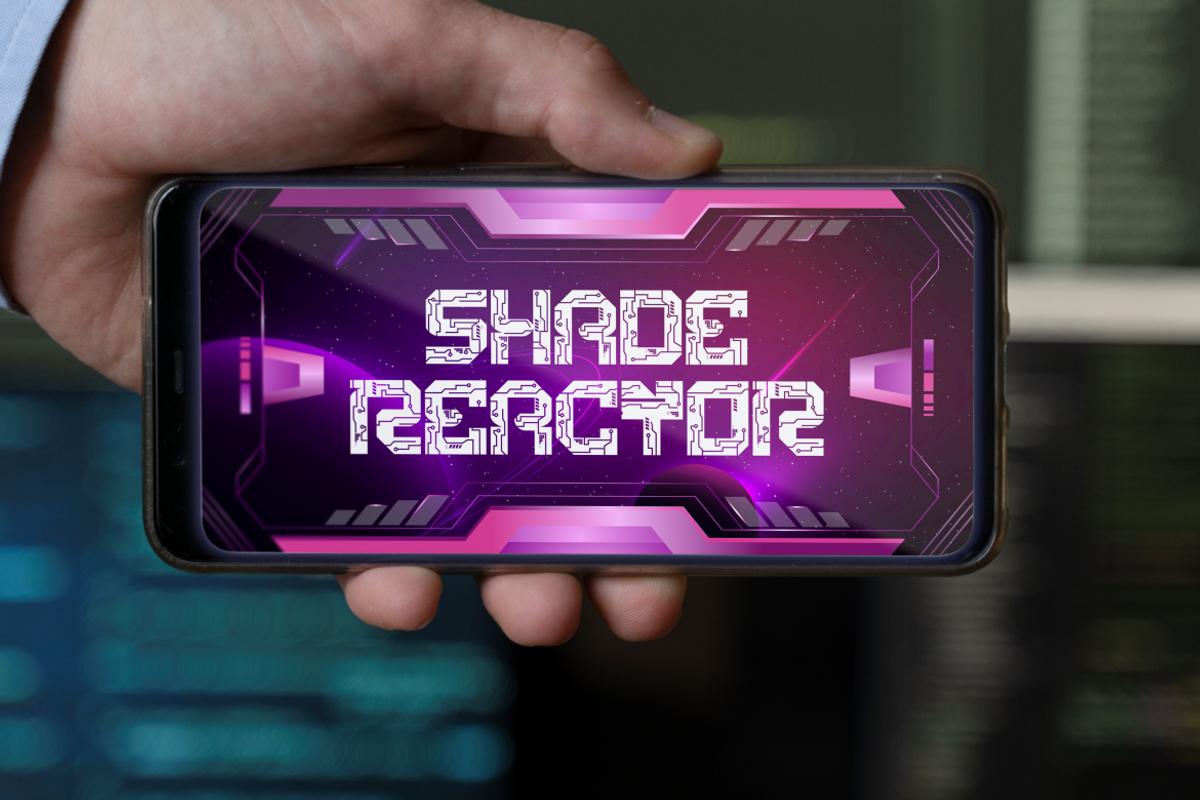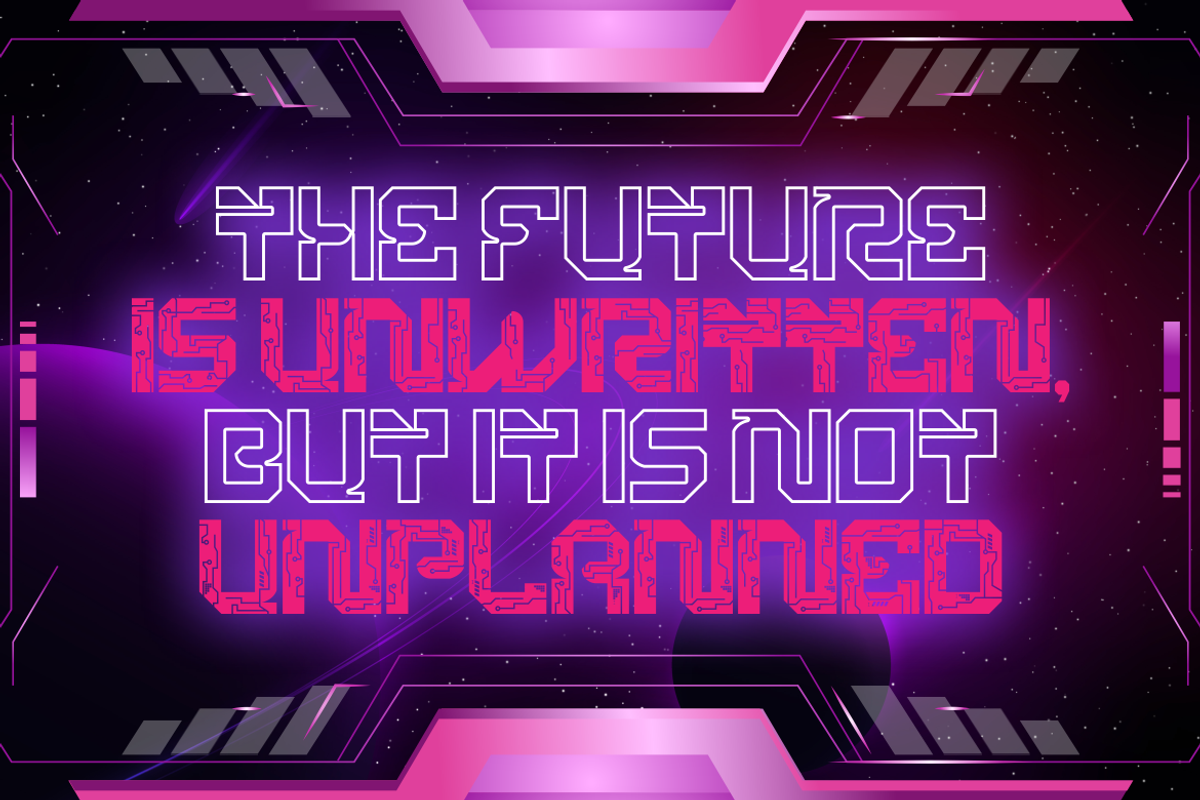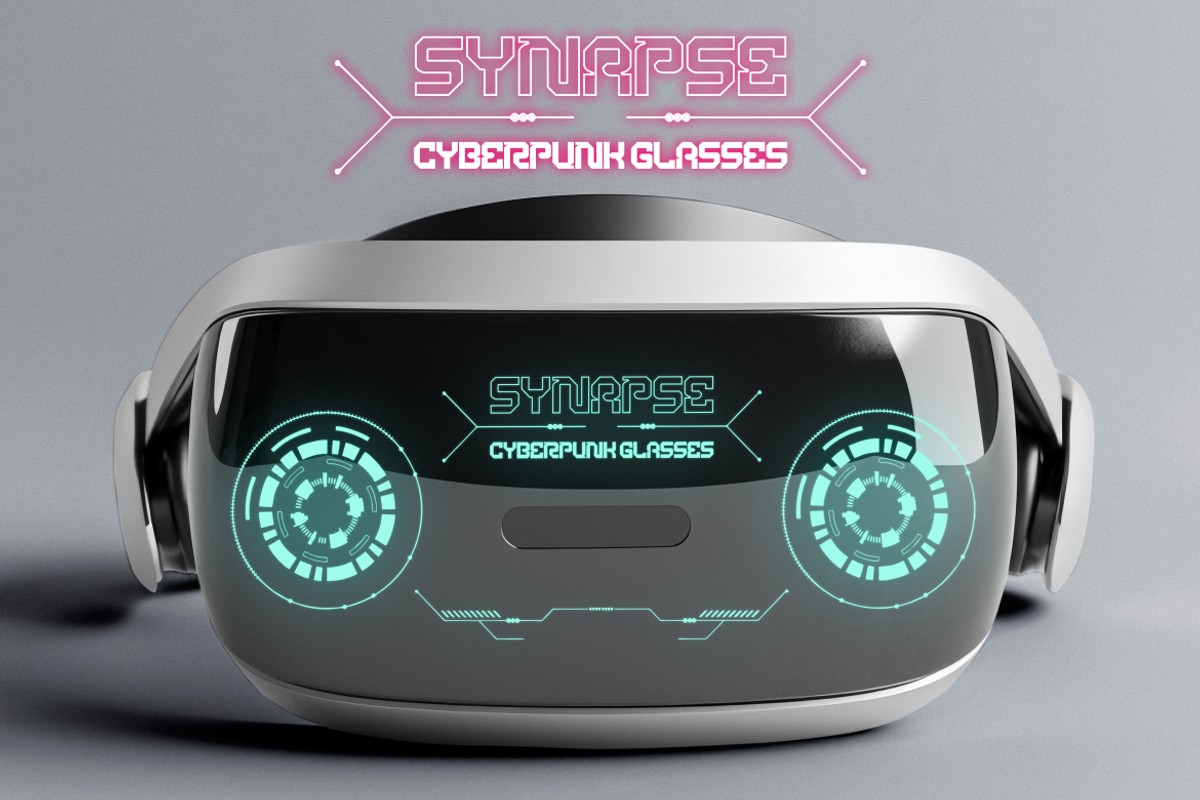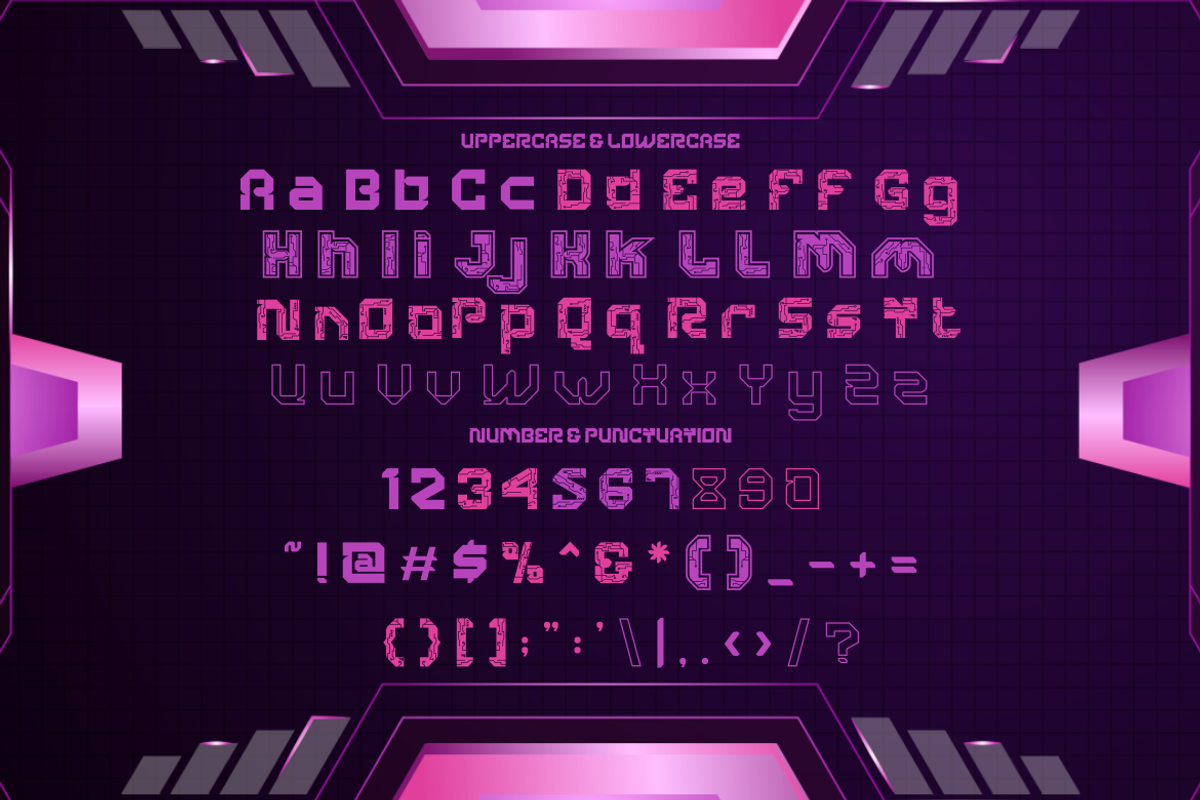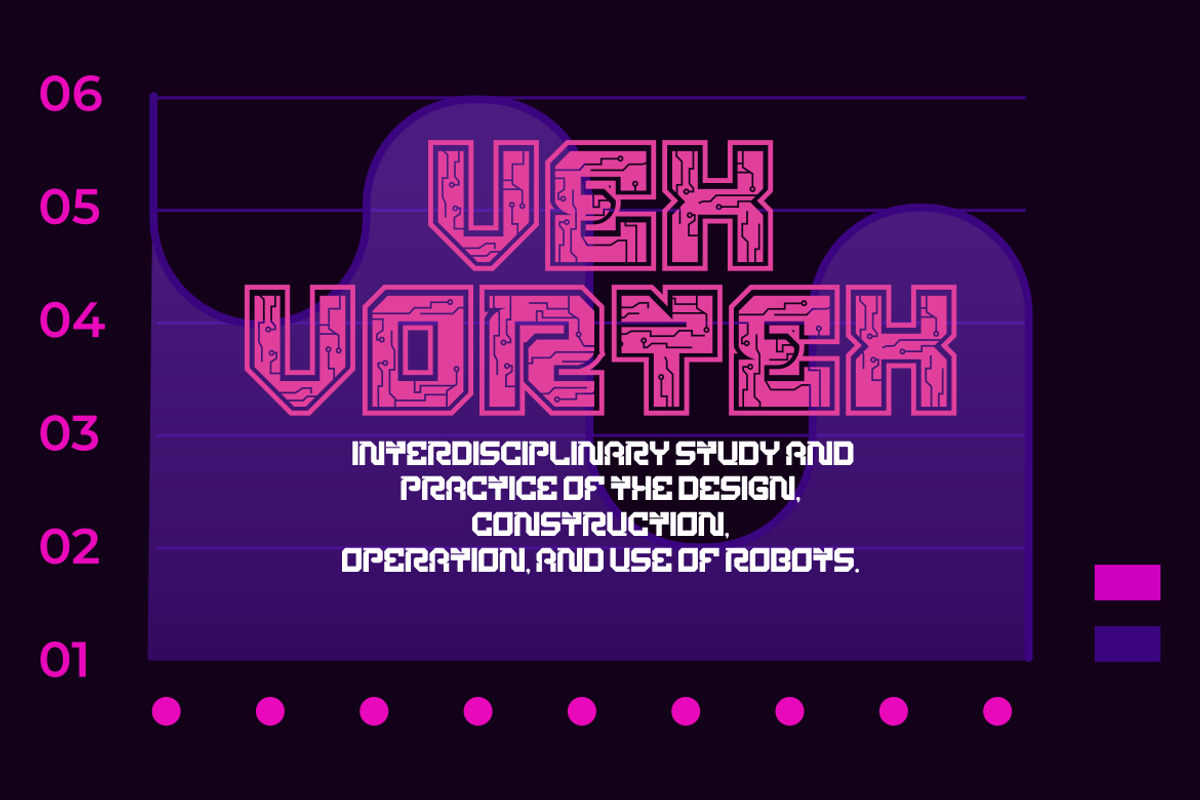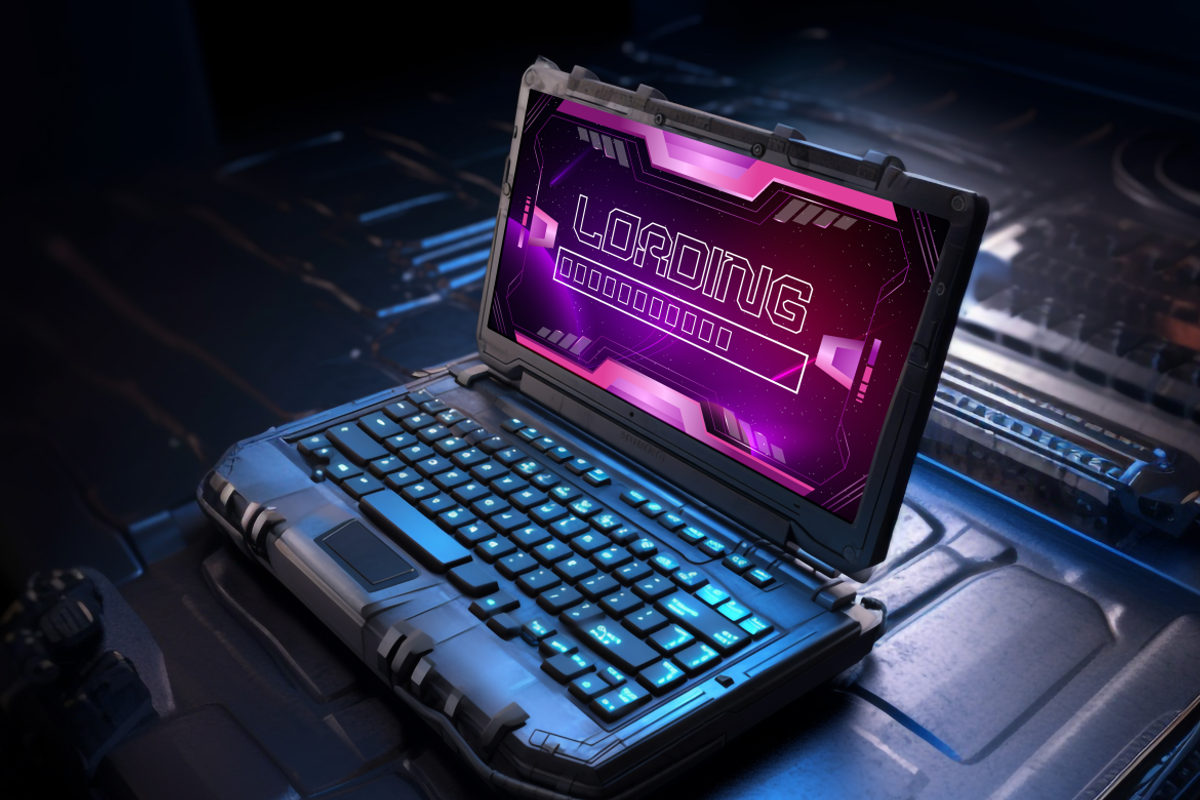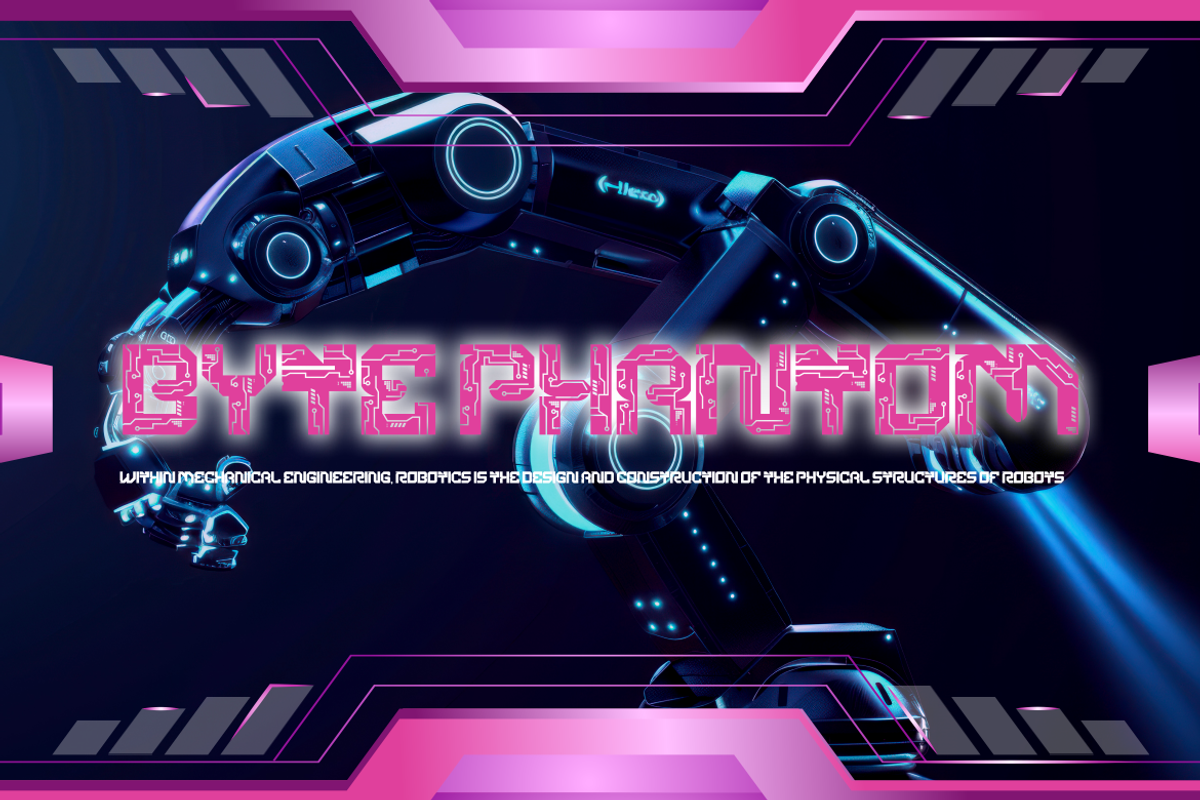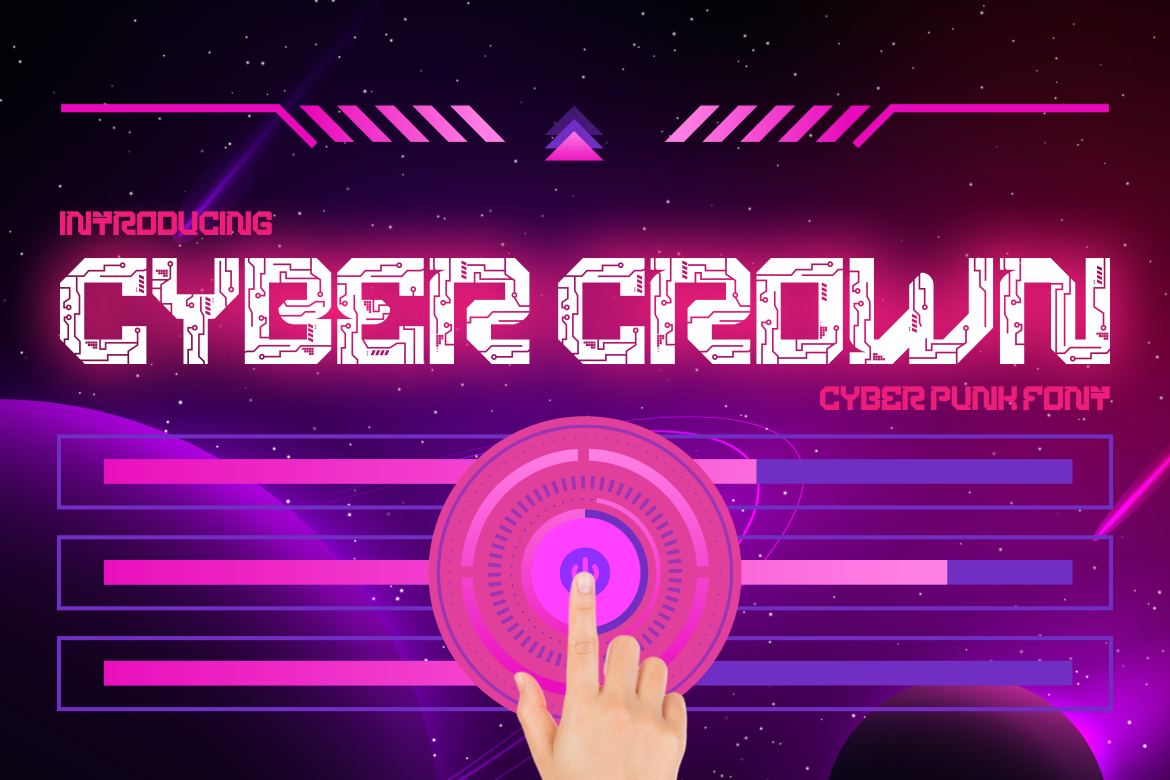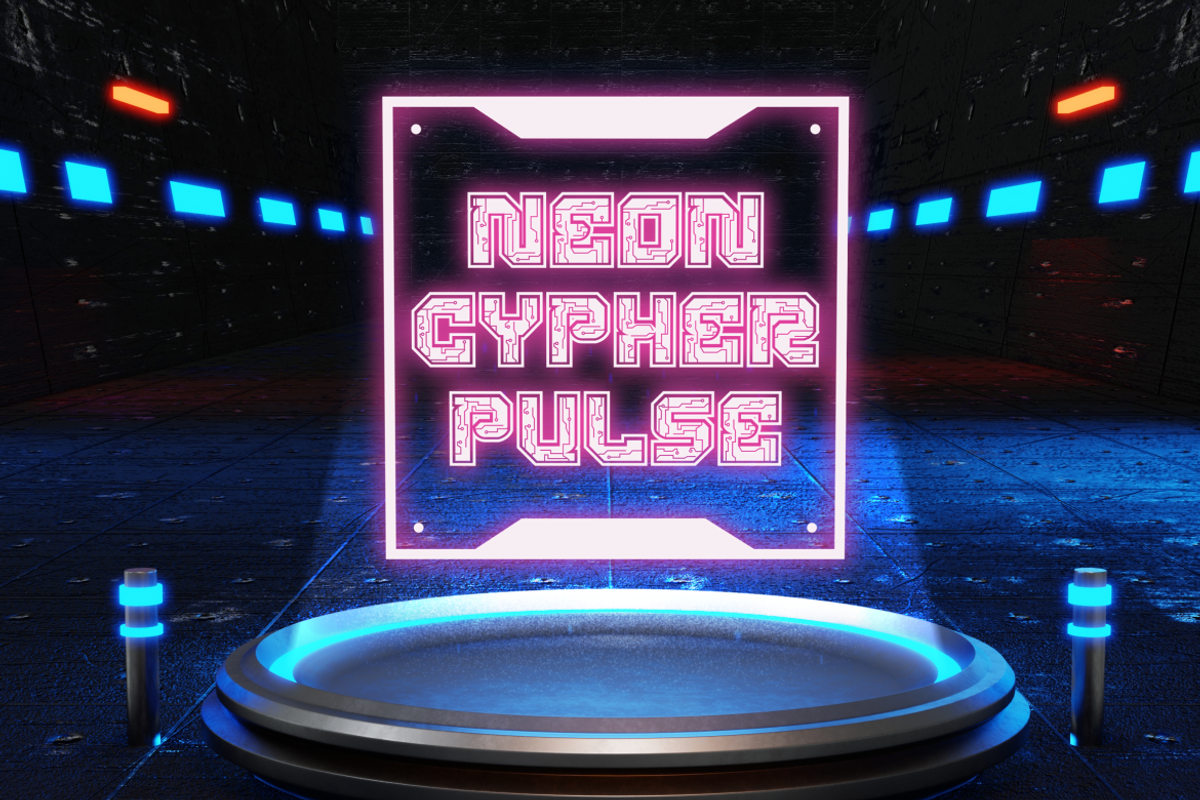
Cyber Crown - Cyberpunk Font
Introducing Cyber Crown - Cyberpunk Font, a cutting-edge typeface designed for futuristic and tech-inspired projects. With its sharp, circuit-like strokes and digital, neon glow, this font channels the essence of cyberpunk and sci-fi aesthetics. It is a perfect choice for anyone aiming to give their design a modern, technological vibe. Cyber Crown stands out in vibrant colors, evoking the sleek feel of glowing cityscapes, futuristic machines, and digital realms. Whether you're working on logos, branding, or posters, this font will ensure your message looks bold and ready for the future.
Ideal for a range of creative applications, Cyber Crown excels in projects like film titles, product packaging, invitations, and more. Its glowing and mechanical letterforms make it perfect for brands looking to explore the cyberpunk genre or create tech-inspired designs. This font adds an electric touch to book covers, business cards, and stickers, while seamlessly blending with sci-fi themed projects. If you're looking for a font that embraces technology, innovation, and the future, Cyber Crown will bring that bold, futuristic feel to life.